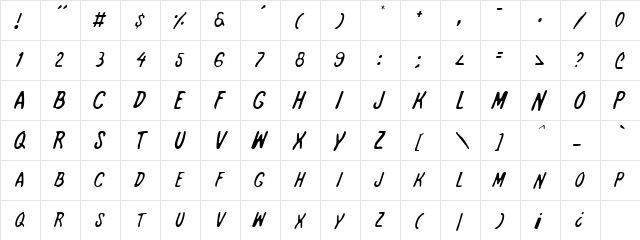
International Super Hero Light Light
Design Context for International Super Hero Light Typeface
International Super Hero Light is a composed and adaptable typeface that performs quietly and consistently across a wide range of design contexts. The delicate stroke weight brings airiness and refinement to layouts.